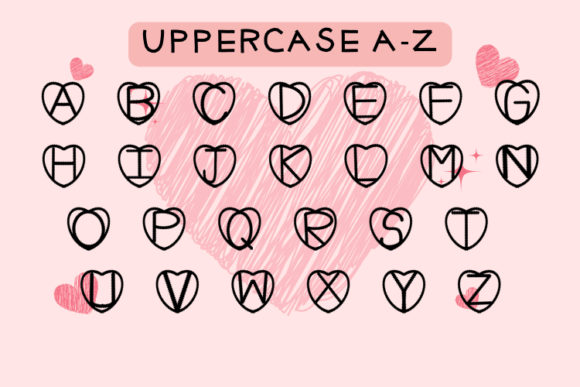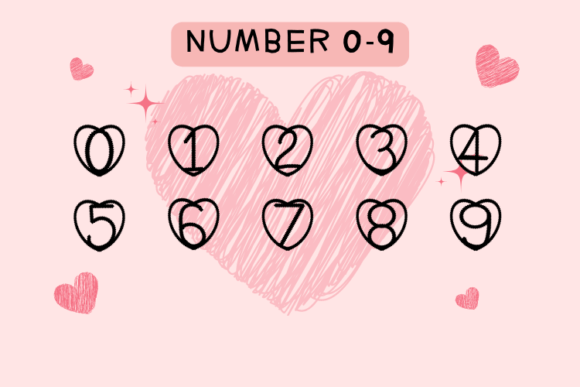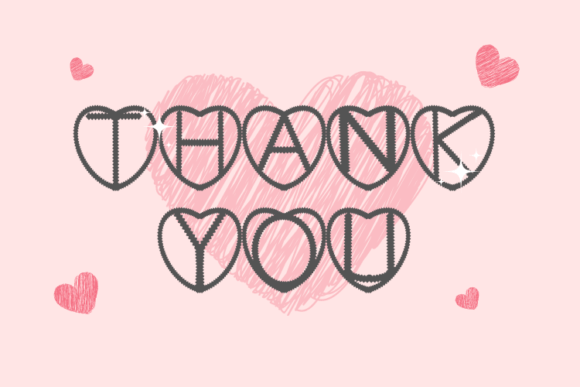
Introducing the Heart Zig Zag Font: A Decorative Delight for Designers and Crafters
Are you looking for a unique and playful font to add a touch of whimsy to your designs? Look no further than the Heart Zig Zag Font! This decorative font is perfect for designers and crafters who want to create eye-catching invitations, cards, posters, and gifts for Valentine’s Day and beyond.
What is the Heart Zig Zag Font?
The Heart Zig Zag Font is a digital font that features letters surrounded by hearts, creating a fun and festive look. The font is designed to be versatile and can be used for a variety of creative projects, from DIY crafts to professional design work. With its playful and romantic vibe, this font is sure to capture the hearts of your audience.
Uses for the Heart Zig Zag Font
The Heart Zig Zag Font is perfect for a wide range of projects, including:
- Invitations: Create custom invitations for parties, weddings, and other special events with a personal touch.
- Cards: Design unique greeting cards for Valentine’s Day, birthdays, and other occasions.
- Posters: Add a pop of color and whimsy to your posters with this eye-catching font.
- Valentine’s Day Gifts: Use the Heart Zig Zag Font to create custom gift tags, wrapping paper, and other decorative elements.
- Crafting: Incorporate the font into your scrapbooking, journaling, and other DIY craft projects.
Benefits of Using the Heart Zig Zag Font
So why choose the Heart Zig Zag Font for your design projects? Here are just a few benefits:
- Unique and Playful: The Heart Zig Zag Font adds a touch of whimsy and fun to any design.
- Versatile: The font can be used for a wide range of projects, from invitations to posters to craft projects.
- Customizable: You can adjust the font size, color, and style to fit your design needs.
Tips for Using the Heart Zig Zag Font
Here are a few tips for getting the most out of the Heart Zig Zag Font:
- Pair with Other Fonts: Combine the Heart Zig Zag Font with other fonts to create a unique and interesting design.
- Experiment with Colors: Try out different colors and color combinations to find the perfect look for your design.
- Use on Various Backgrounds: The Heart Zig Zag Font looks great on a variety of backgrounds, from solid colors to patterns and textures.
Whether you’re a professional designer or a DIY crafter, the Heart Zig Zag Font is sure to inspire your creativity and bring a smile to your face. So go ahead, get creative, and show the world your love for this adorable font!